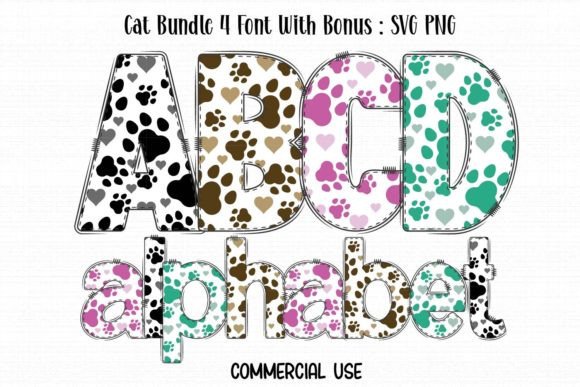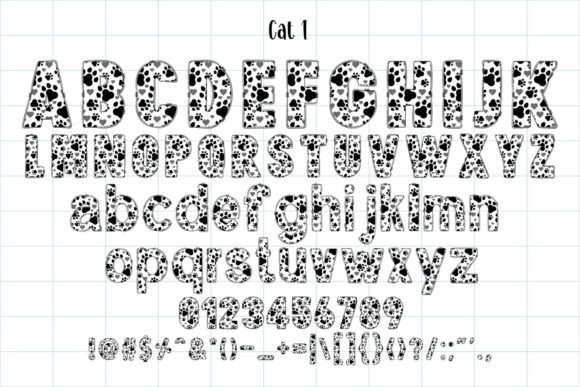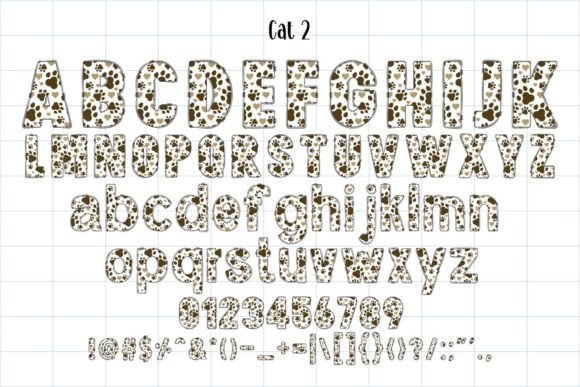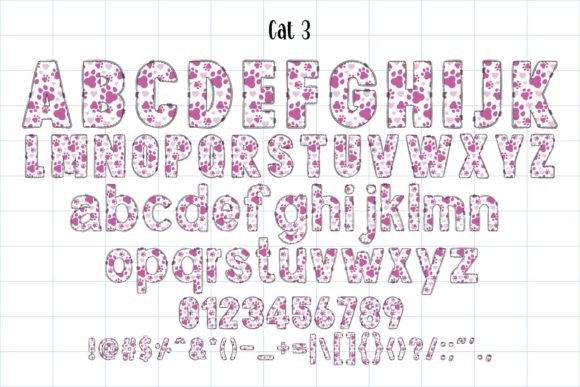
About the Cat Font
Elevate your designs with Cat Font, a font that combines sophistication with readability. Immerse yourself in the delightful and vibrant charm of the ‘Cats’ font. Showcasing an irresistibly adorable and playful cat theme, this color font exudes bold and fresh appeal, transforming your design project into a head-turning piece of art. Drench each layout with an irresistible, friendly feline touch that effortlessly persuades your audience to pause and take notice. Unique, captivating, and full of life – the ‘Cats’ font is everything you need to make your designs leap off the page with an unmatched stylish flair.